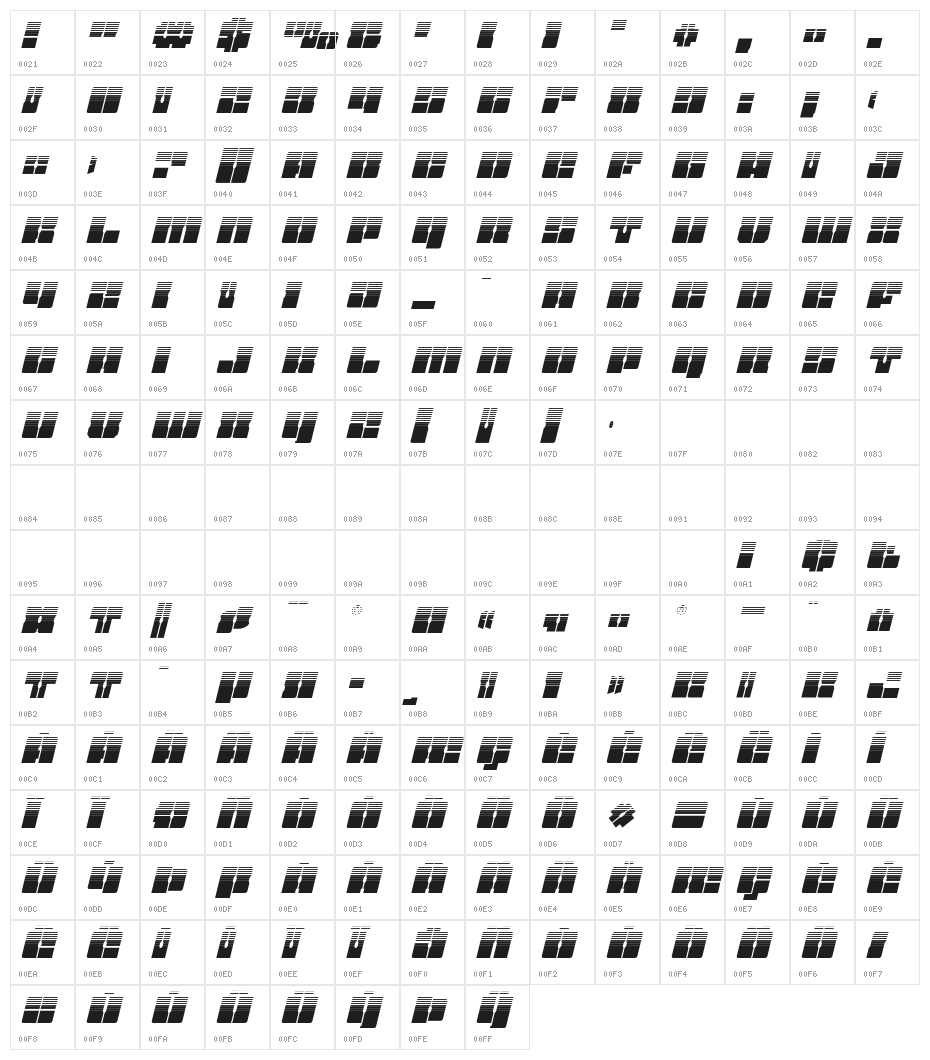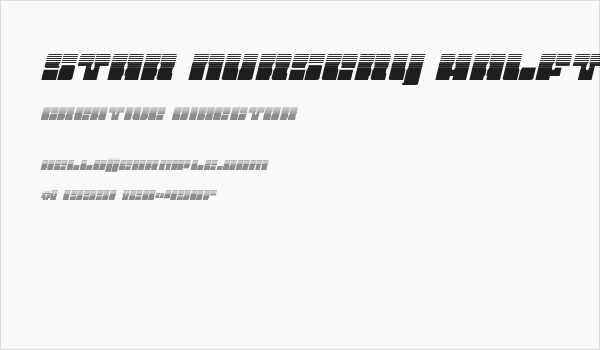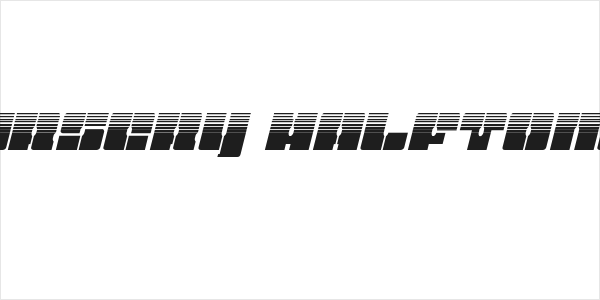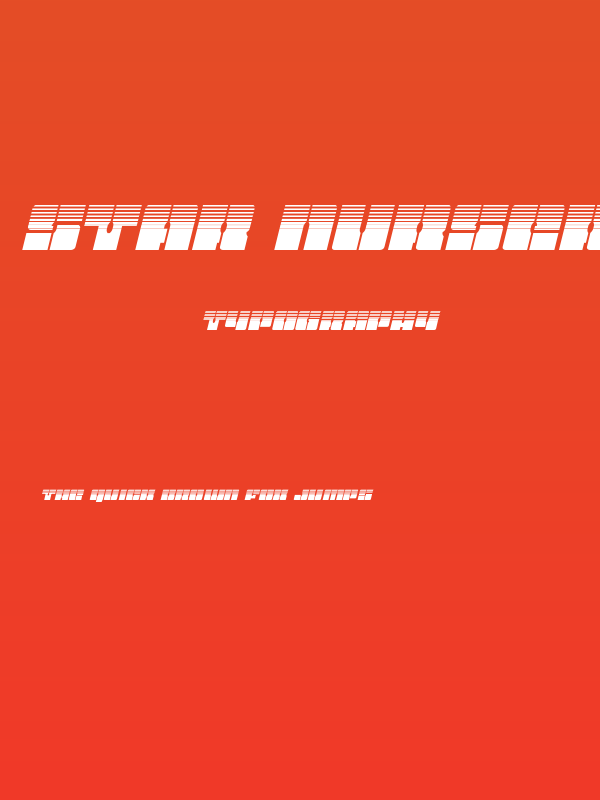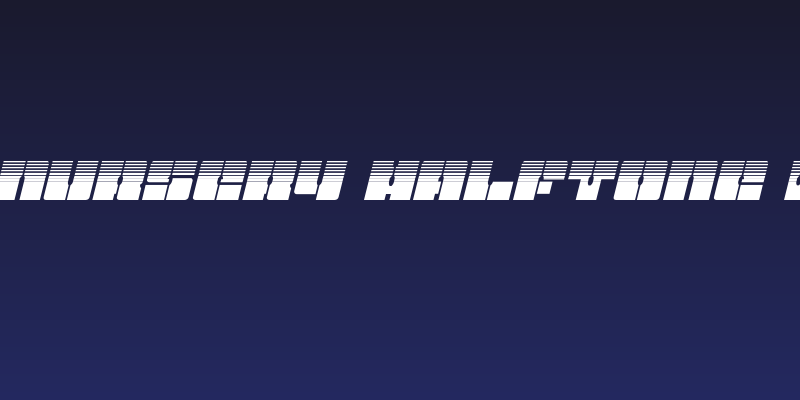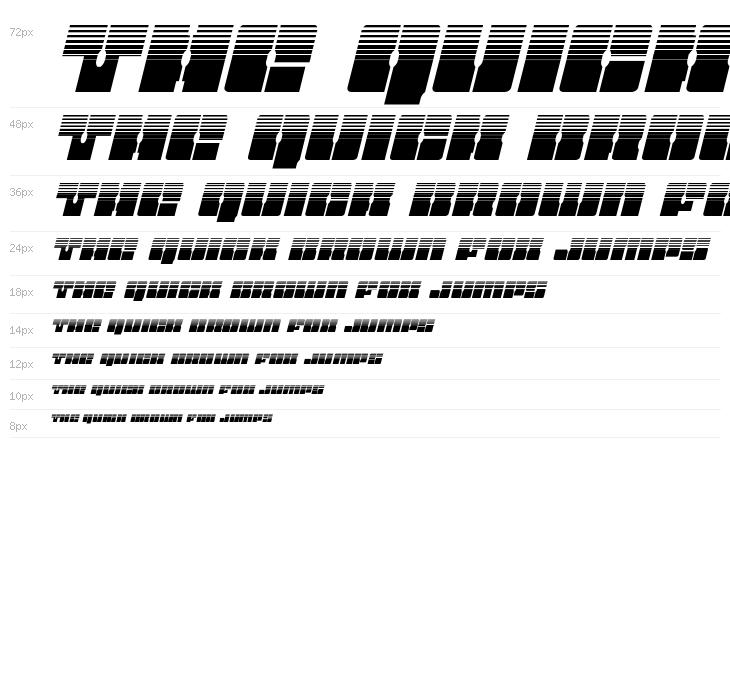
Star Nursery Halftone Italic Font
Star Nursery Halftone Italic Description
This font features a bold, italicized style with a unique halftone effect that creates a sense of movement and dynamism. The characters are constructed with horizontal lines that give a layered, textured appearance, reminiscent of retro digital displays or futuristic themes. The boldness of the font ensures high visibility, making it suitable for attention-grabbing headlines or titles. The italic slant adds a sense of speed and urgency, enhancing its modern and edgy aesthetic. The font's design is both decorative and functional, offering a distinct visual impact.
| Proposed Projects | Ideal for futuristic branding, tech-related projects, posters, and digital media that require a striking visual element. |